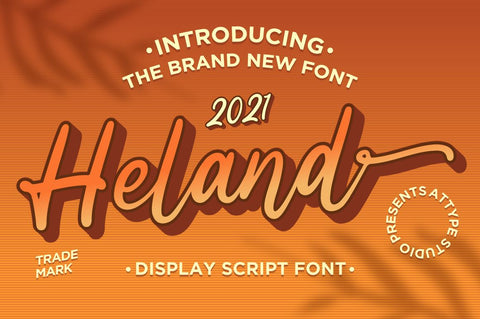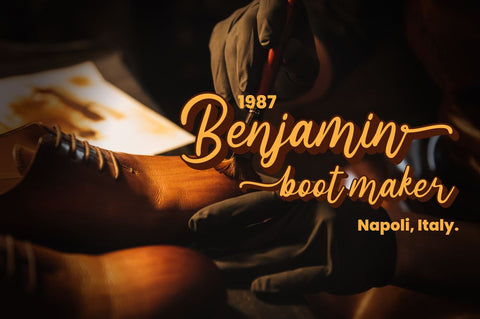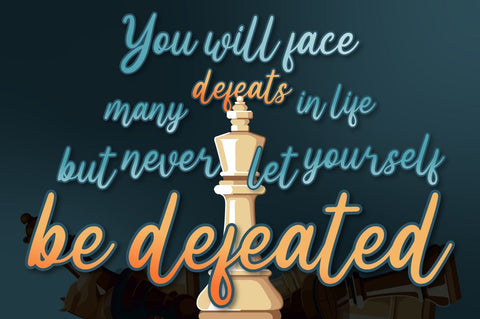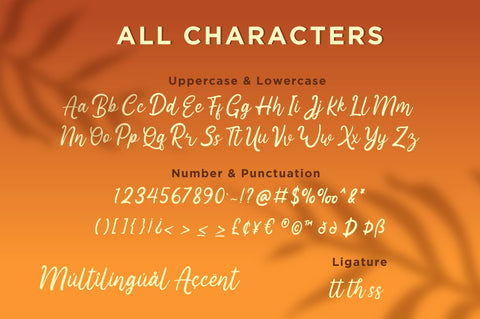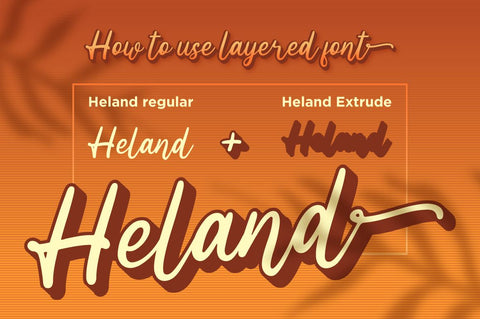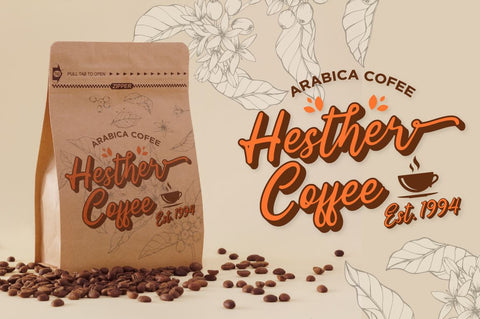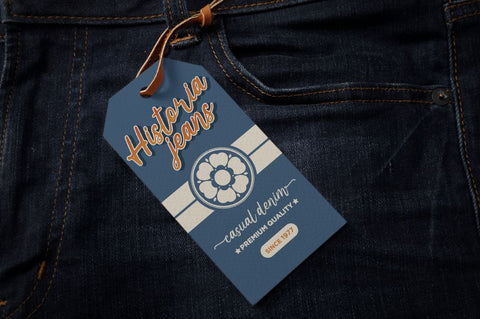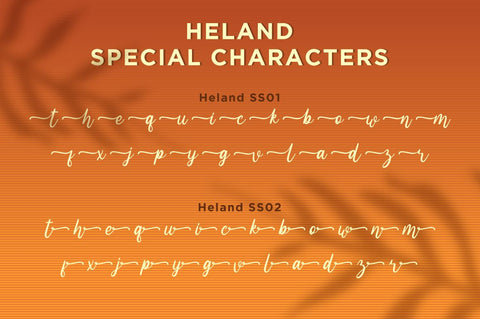
Heland - Display Script Font
Introducing Heland - Inspired by typeface on 70s era,
Heland has the vintage font & retro font with two style regular & extruded.
Two style Font: regular & extruded.
Heland is perfect for children product, branding, logo, invitation, stationery, product packaging, merchandise, monogram,
blog design, game titles, cute style design, Book/Cover Title and more.
- Beginning & Ending swash